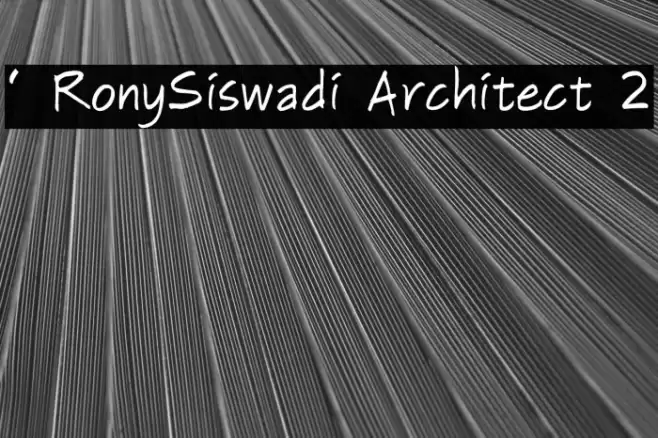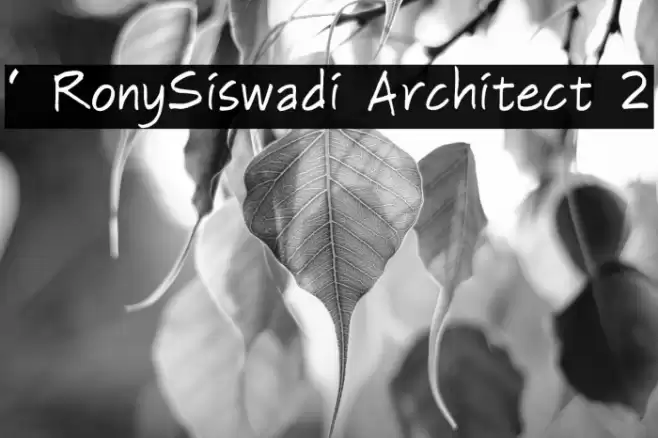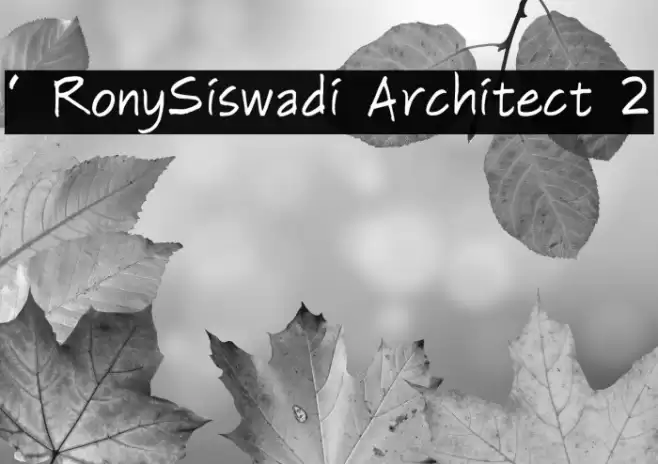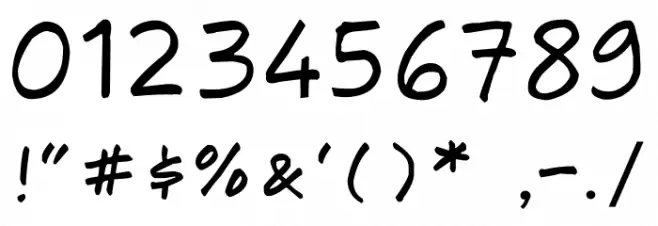
' RonySiswadi Architect 2 Font
' RonySiswadi Architect 2 Description
This font exudes a casual and handwritten style, reminiscent of architectural sketches or notes. The characters are slightly irregular, giving it a personal and informal touch. The uppercase letters are bold and assertive, while the lowercase letters maintain a consistent flow with a slight slant, enhancing the handwritten feel. Numbers are clear and legible, matching the overall style. Special characters are well-integrated, maintaining the font's cohesive appearance. This font is perfect for projects that require a human touch, such as personal branding, creative projects, or informal communication.
A casual, handwritten font with an architectural flair from Uncategorized fonts.
- Proposed Projects: Ideal for personal branding, creative projects, informal communication, and architectural sketches.
- Overall Style: Casual, Handwritten
- Use Case: Logos, Informal communication, Creative projects